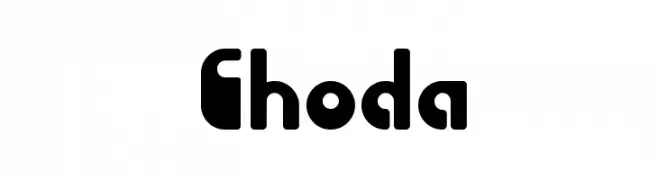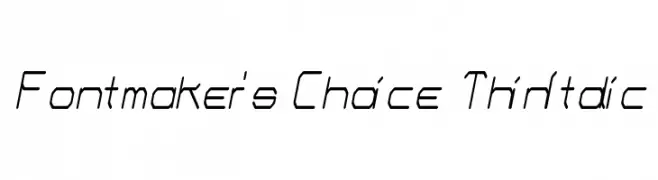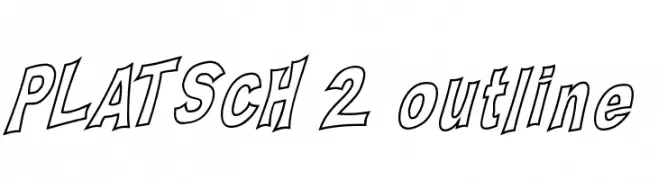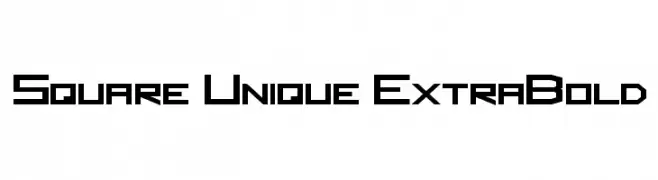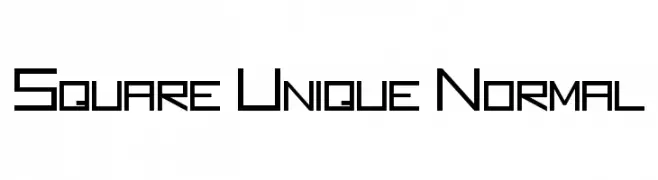
A bold, outlined, slanted font with a playful and dynamic style.
A thin, italicized font with a modern, geometric style.
A bold, geometric font with a modern and futuristic style.
A geometric, angular font with square letterforms and uniform line thickness.
A bold, geometric font with rounded edges and a playful style.
A bold, edgy font with a distressed, hand-drawn appearance.